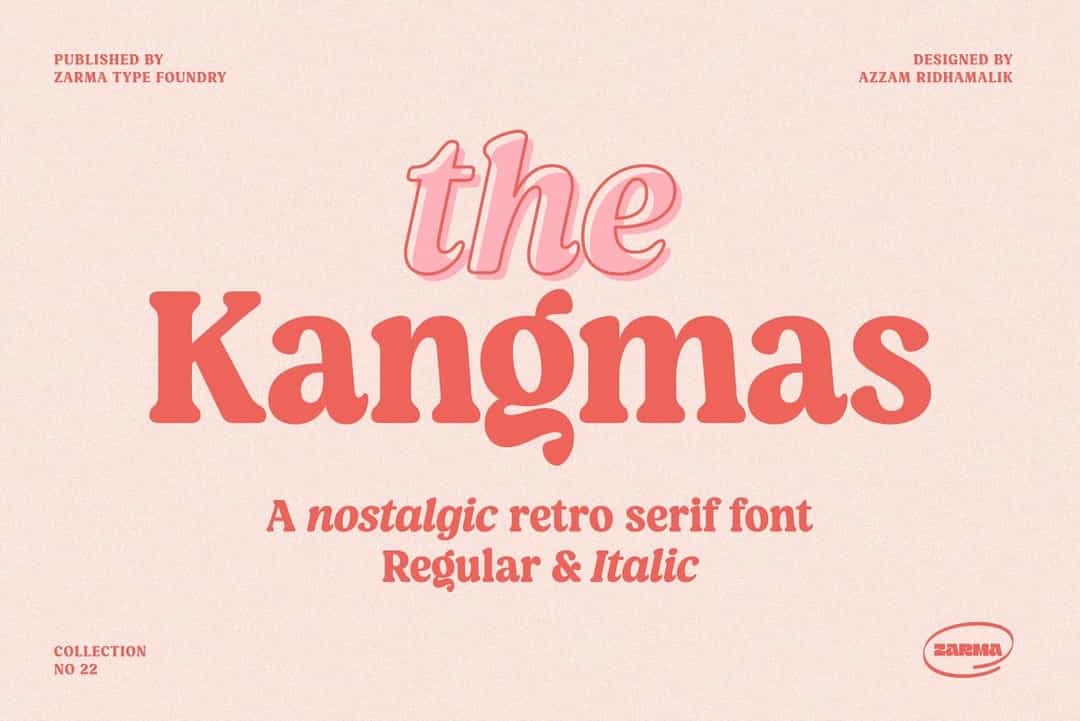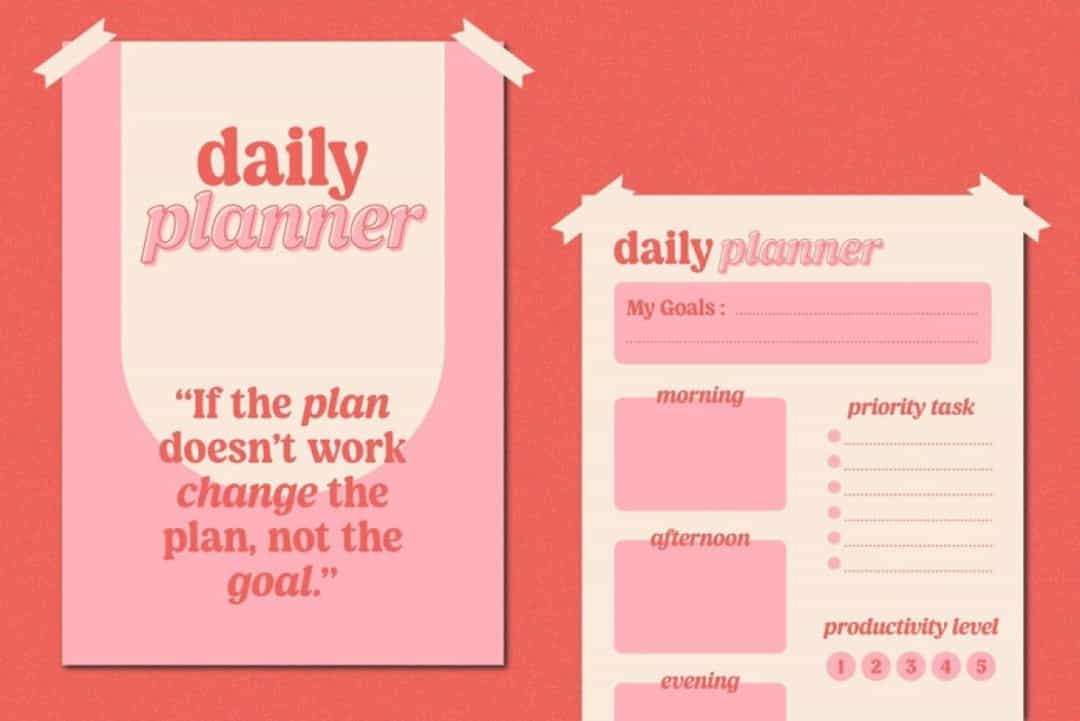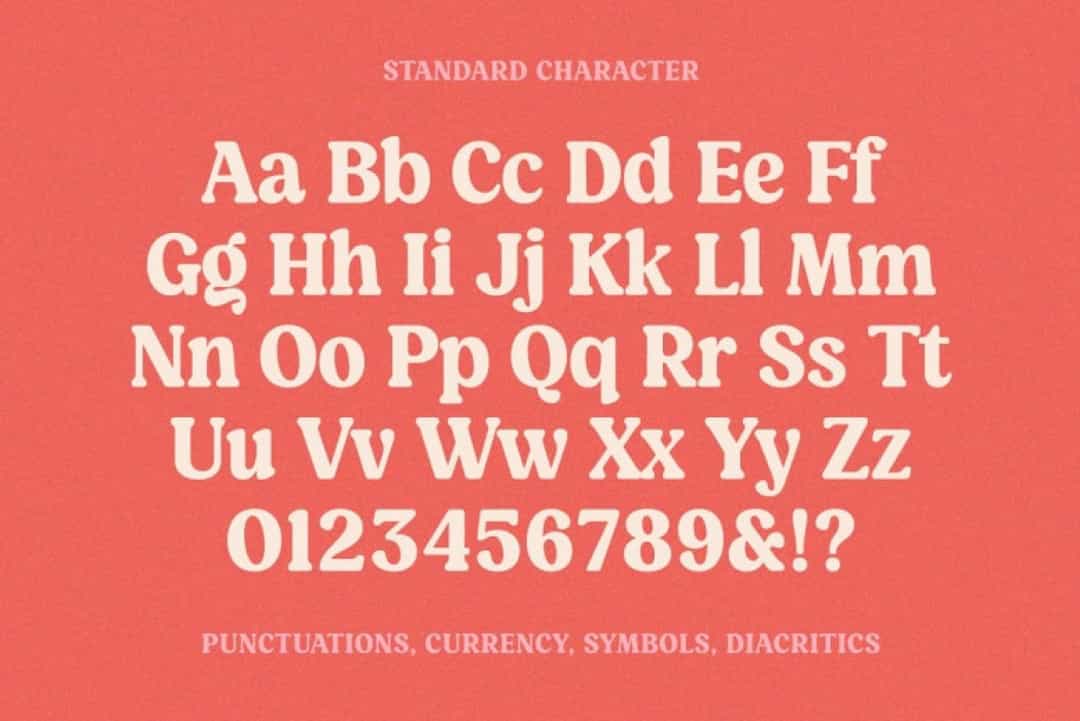
Kangmas is a classic old-fashioned retro serif font with true and regular italic designs, featuring round serifs inspired by retro styles returning and the legendary Cooper black typeface, but with more modern-looking letter shapes within the font for an old-fashioned yet classic feel.